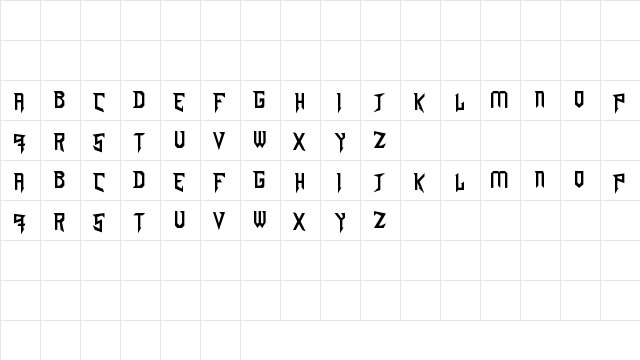
PowerDark Bold
Design Context for PowerDark Typeface
PowerDark brings high-energy athletic personality to the page — its confident, muscular forms are built for impact. The heavy weight commands attention and anchors typographic hierarchies.
A natural choice for gym brands, fantasy sports, jersey lettering, and action-driven headlines.
Pro Tip: Use PowerDark in all-caps headlines where its athletic energy can fully express itself. Pair with a solid, simple sans for supporting text.